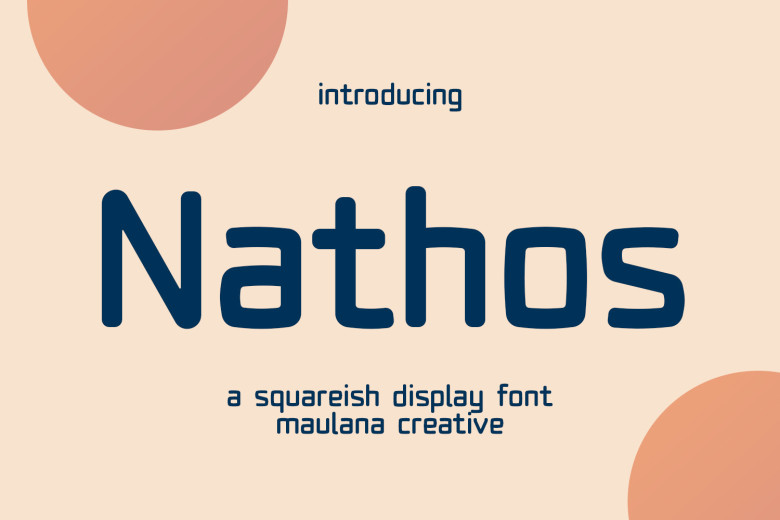
Nathos Font
Nathos offers an engaging character, featuring some ligatures to help make more creative pieces. Supporting over 100 languages, this font can be used for logos, social media posts, movie titles and book titles as well as short texts with serif or script serif fonts for secondary text fonts – Nathos will help create beautiful works!
Nathos Sans Serif Font